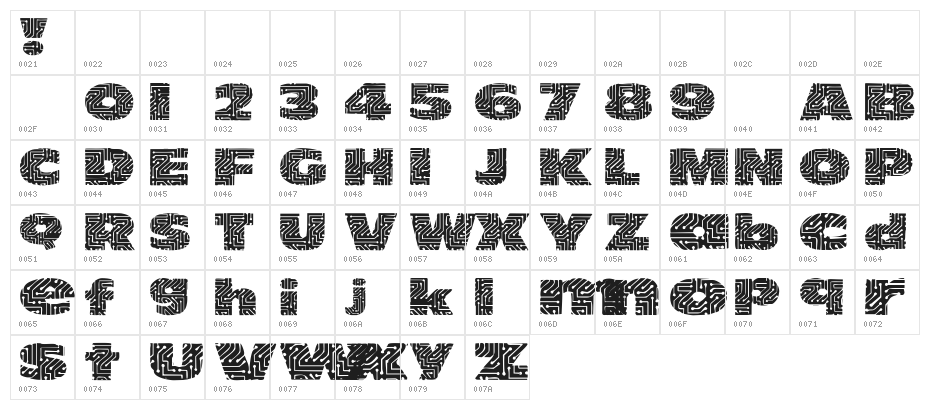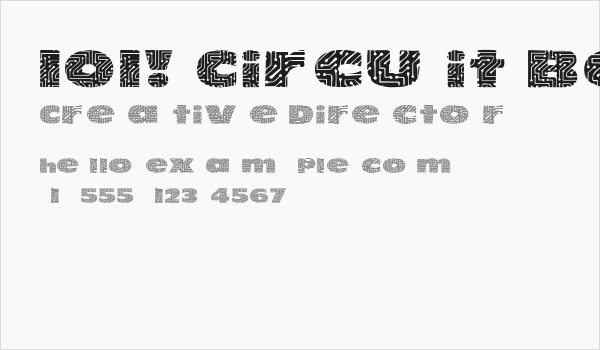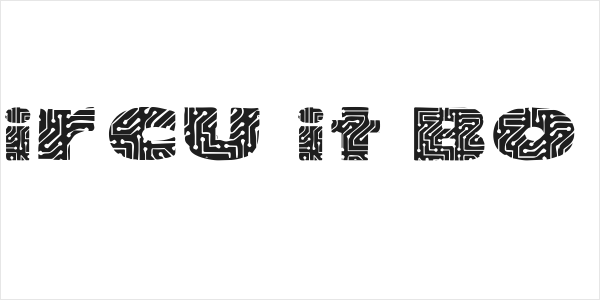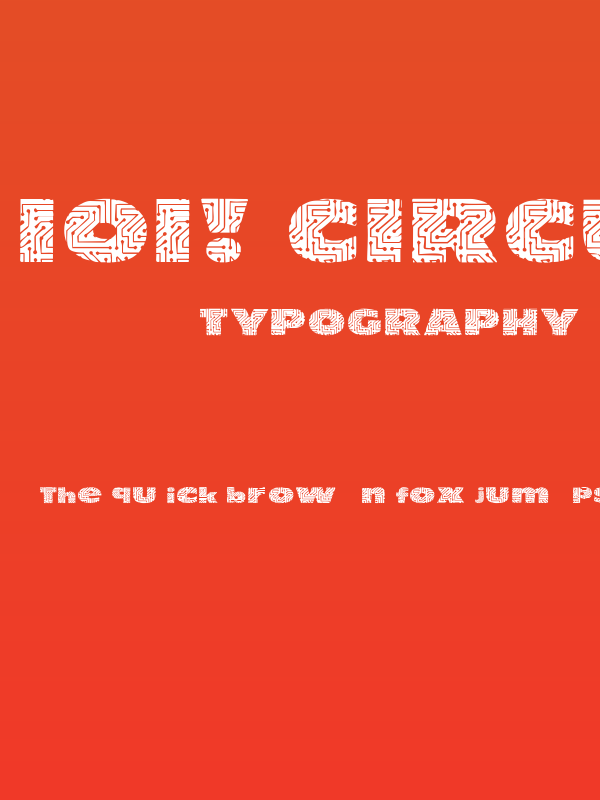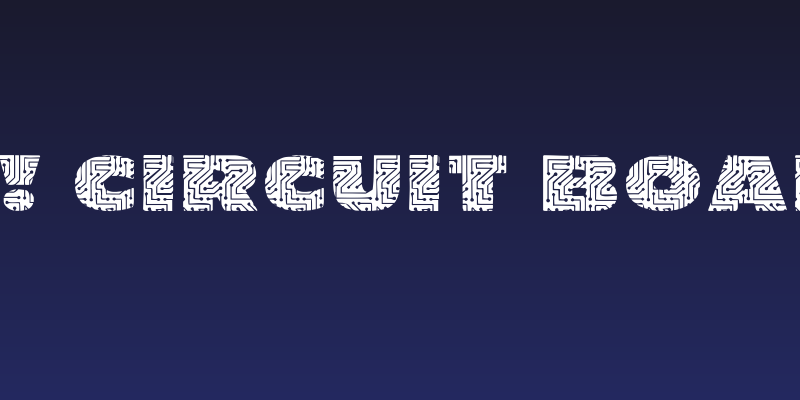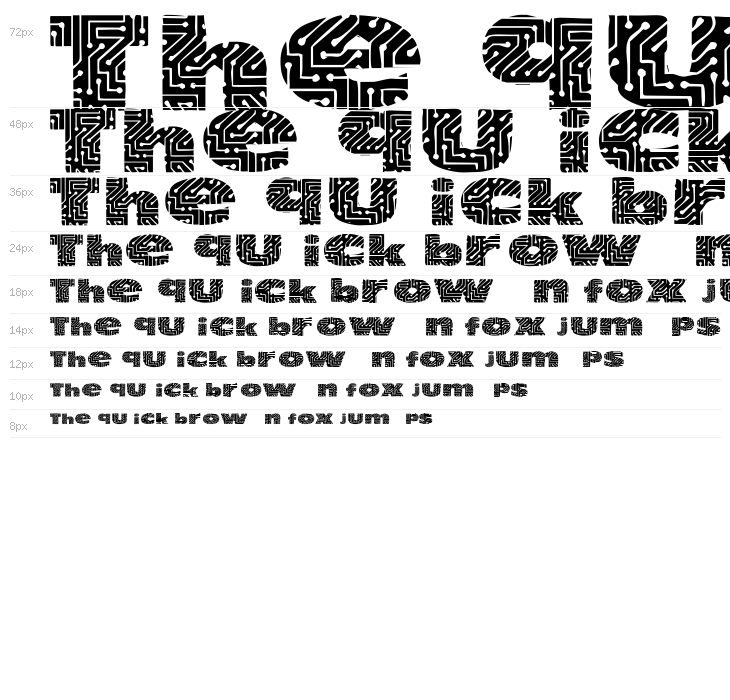
101! Circuit Board Font
101! Circuit Board Description
This font features a unique design inspired by electronic circuit patterns, giving it a distinct and modern technological feel. Each character is intricately detailed with lines and shapes reminiscent of circuit board layouts, creating a visually engaging and complex appearance. The uppercase and lowercase letters maintain a consistent style, with bold and solid forms that ensure readability despite the intricate detailing. Numbers and special characters follow the same design principles, making them cohesive with the alphabetic characters. This font is perfect for projects that require a futuristic or tech-oriented aesthetic, such as technology branding, digital media, or sci-fi themed designs.
| Proposed Projects | Ideal for technology branding, digital media, sci-fi themes, and futuristic designs. |